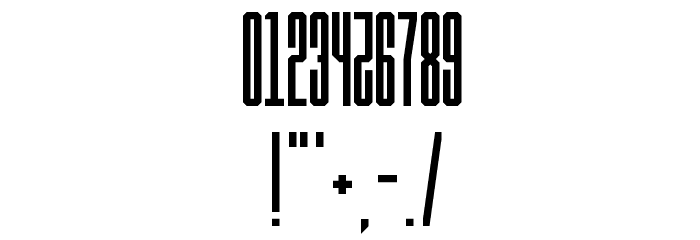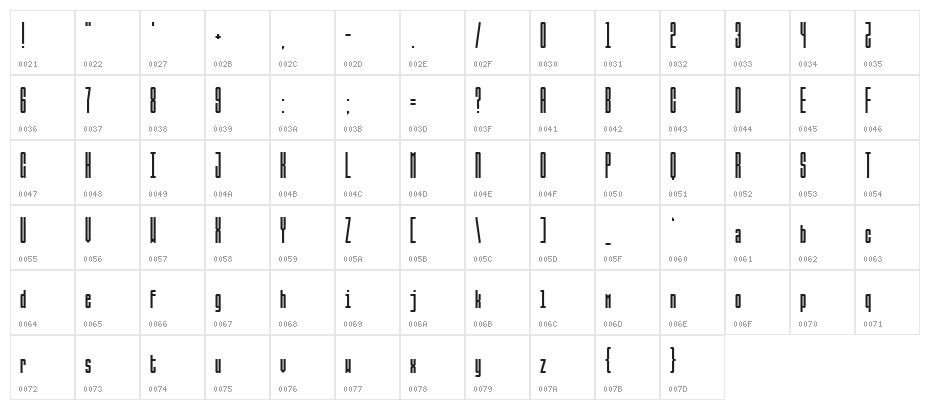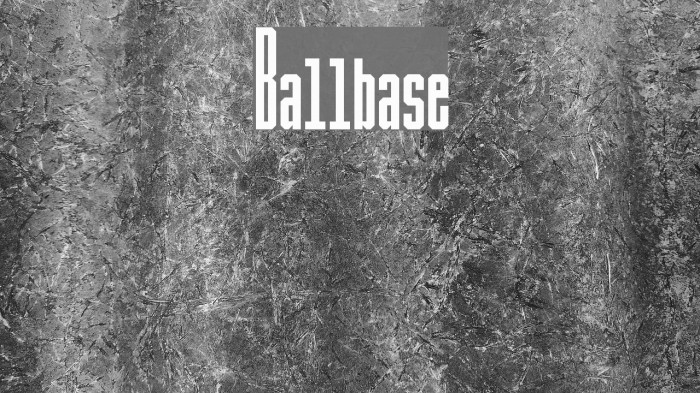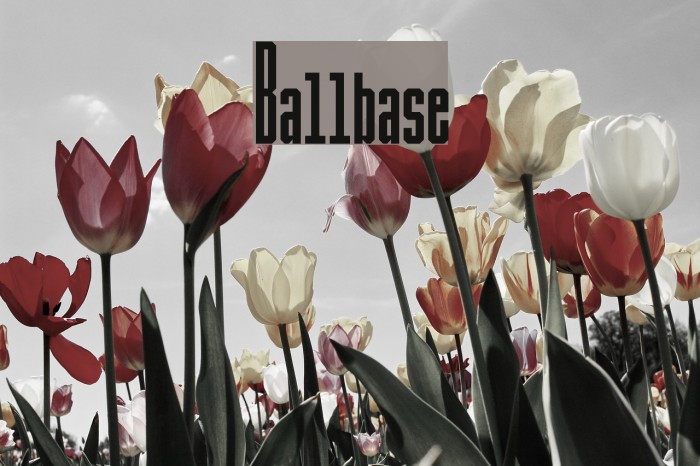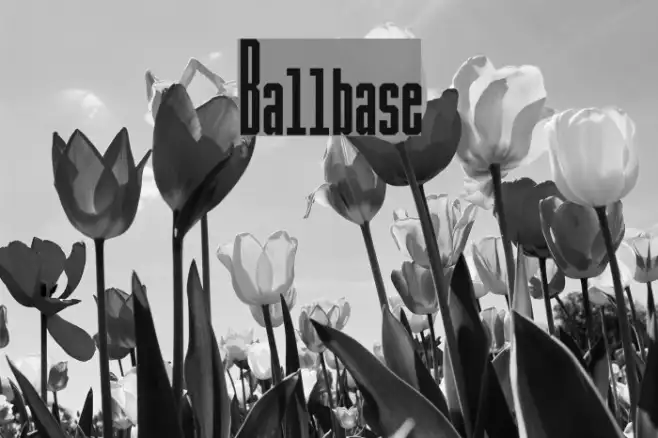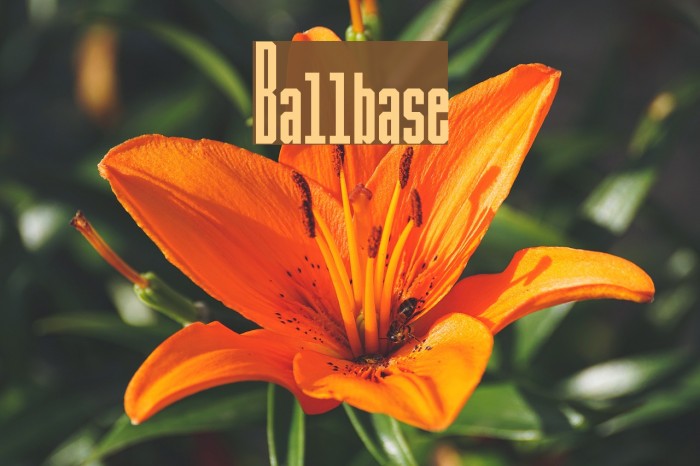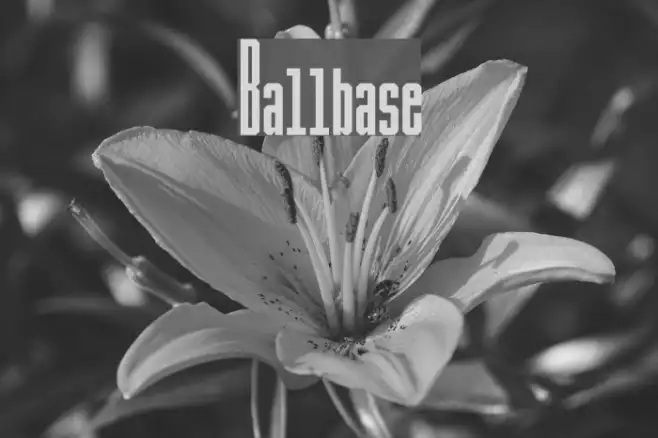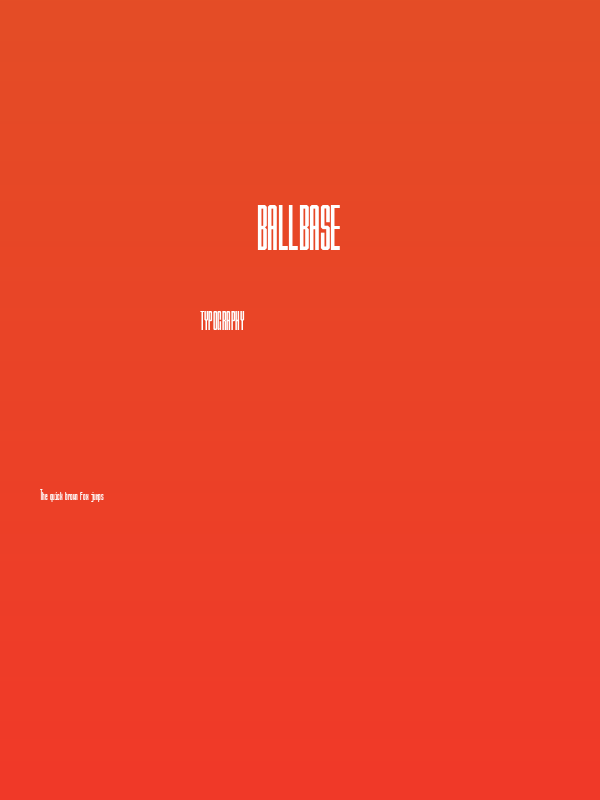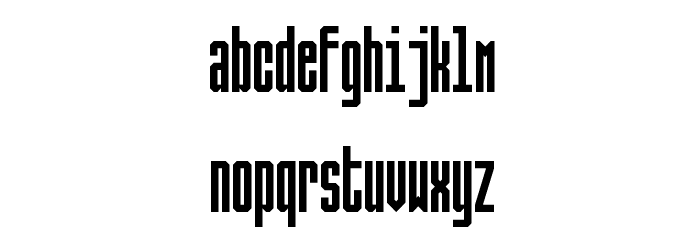
Ballbase Font
Ballbase Description
This font features a bold and condensed style with a strong vertical emphasis. The characters are tall and narrow, giving a striking and impactful appearance. The uppercase and lowercase letters maintain a consistent width, creating a uniform look across the text. The numerals are similarly styled, ensuring readability while maintaining the overall aesthetic. Special characters are included, matching the bold and condensed design. This font is ideal for creating attention-grabbing headlines and titles, where a modern and assertive look is desired.
| Proposed Projects | Ideal for sports branding, poster designs, and any project requiring a bold, modern look. |